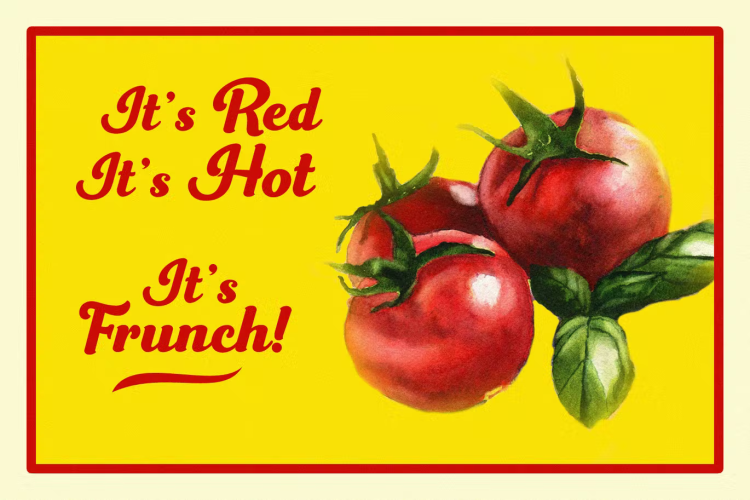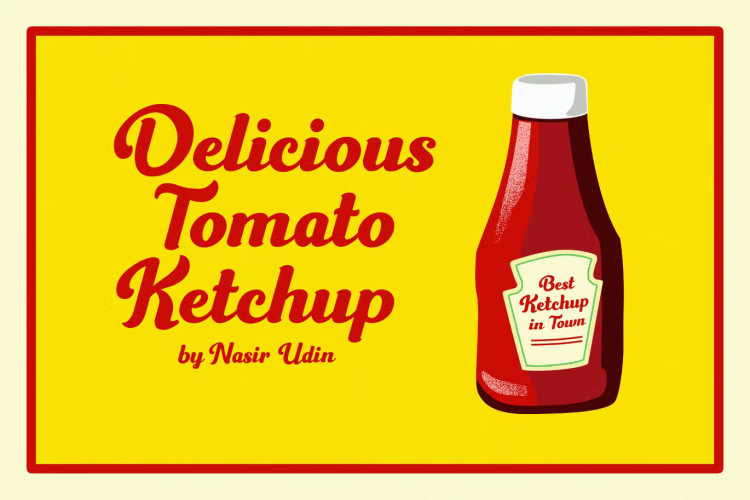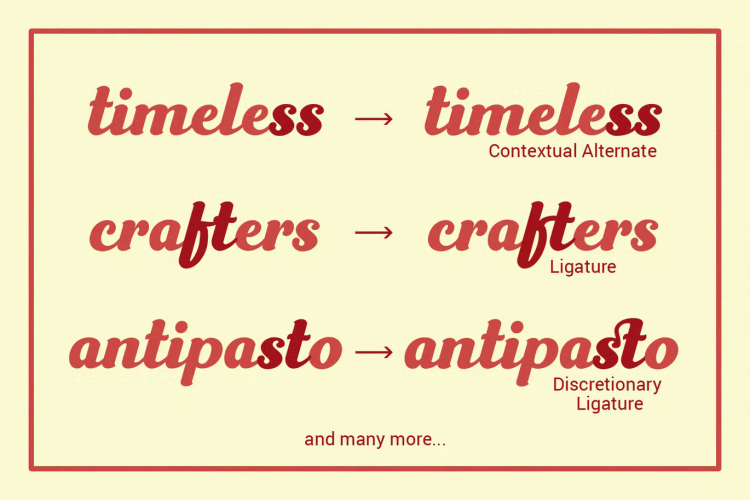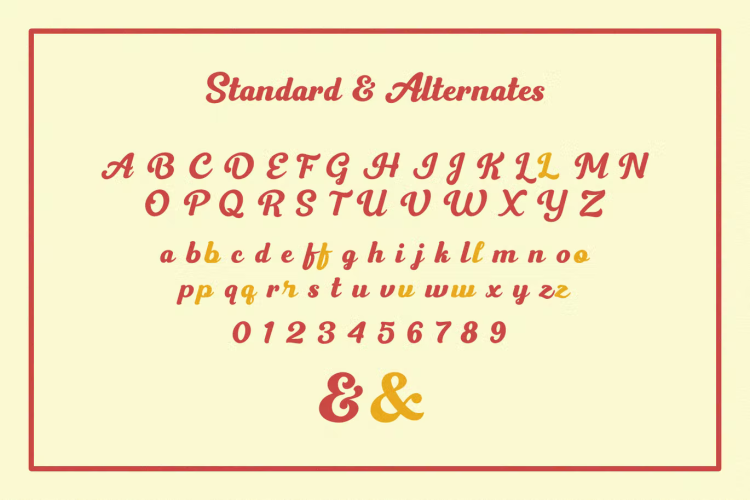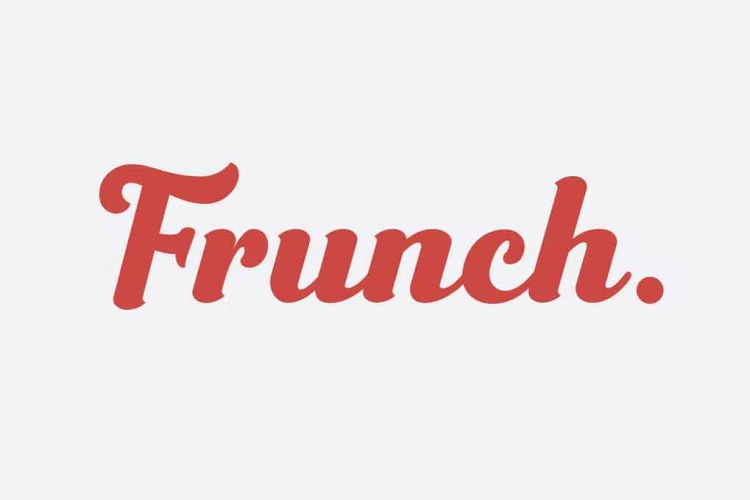
Frunch Font
Starve for tasty bold font? Say hello to Frunch! A delicious bold script font with a vintage vibe.
Frunch comes to you with several alternate letters for you to play with and the complete set of lowercase-letter swashes that make your words look delicious and stand out.
It’s especially created for food & beverages branding as well as product packaging typography (e.g.: snack, honey, breakfast meal, milk, bread and cake). It’s also perfect for poster, business cards, headline, restaurant menus, and much more.
Where Frunch Font works best
A short phrase in Frunch Font carries warmth that a typeset sans cannot fake; keep the rest of the card plain.
Chalkboard-style headings in Frunch Font make a menu feel hand-made. Keep the dish descriptions in a simple face so prices stay readable.
One line of Frunch Font over a photo is enough; the script carries the tone and the caption does the work.
It sits in the Script And Handwritten group and reads as bold, branding, food, professional. That makes it a candidate wherever those qualities help: headings, packaging, social graphics and brand work. Set it at the size you plan to use before deciding.